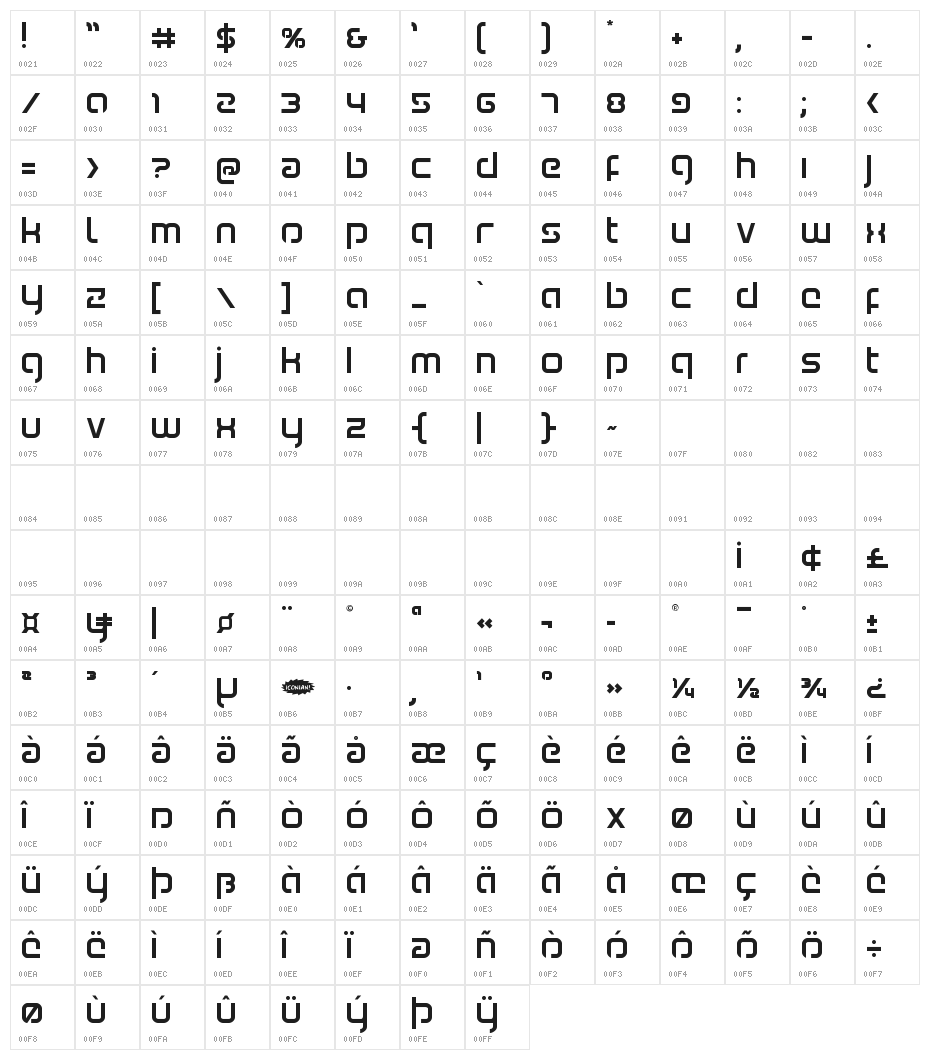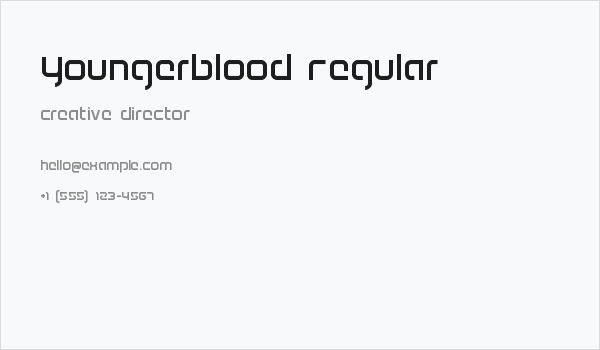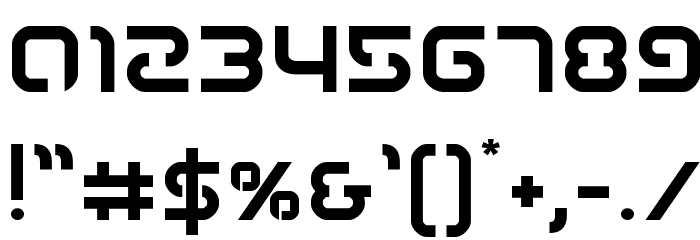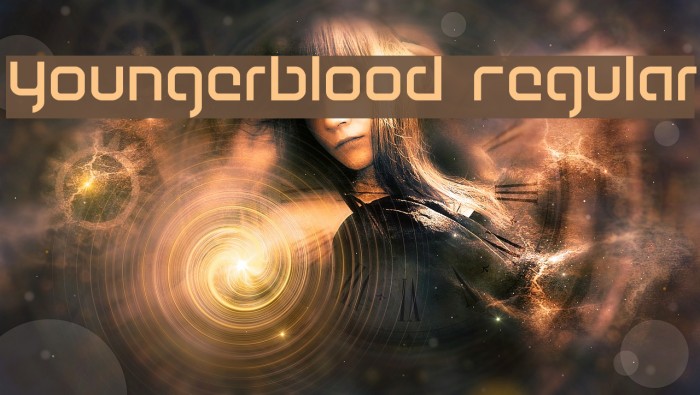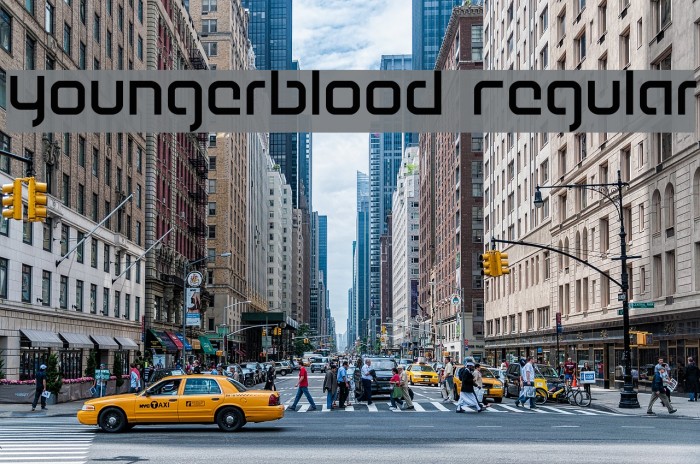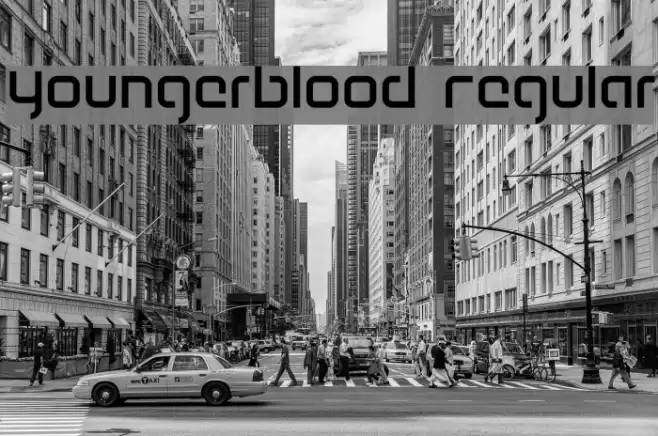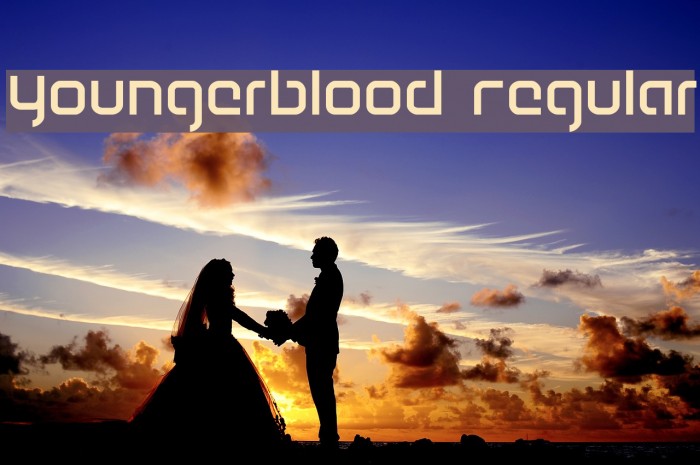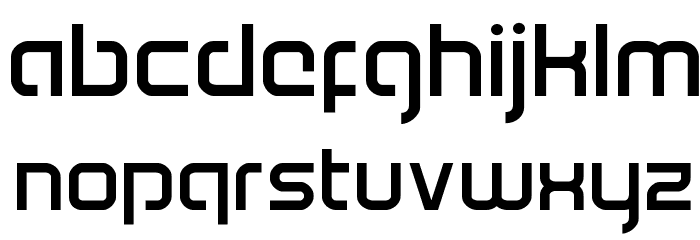
Youngerblood Regular Font
This font features a modern and geometric design with a unique blend of rounded and angular elements. The characters exhibit a consistent stroke width, providing a clean and uniform appearance. The lowercase letters have a distinctive style, with some characters like 'a' and 'g' showcasing a contemporary twist. The uppercase letters maintain a strong presence, suitable for headlines and titles. Numerals are bold and easily readable, while the special characters complement the overall design. The font is versatile, making it ideal for various digital and print applications.
| Use Case | Headlines, Logos, Digital media |
| Proposed Projects | Ideal for branding, digital media, posters, and modern web design. |